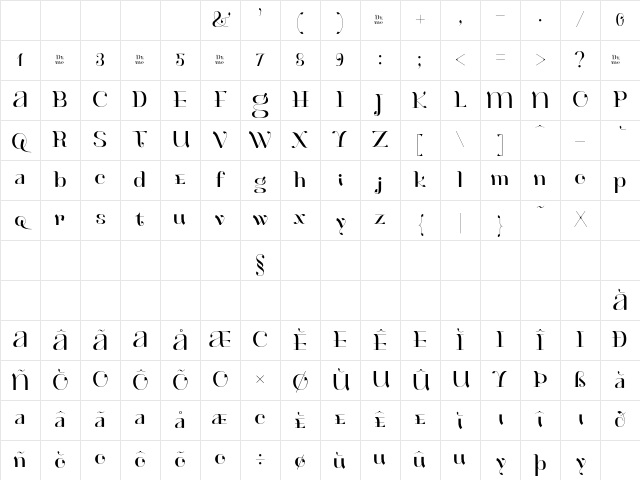
HenriModeste Demo Free Font
HenriModeste Demo
Design Context for HenriModeste
HenriModeste is a composed and adaptable typeface that performs quietly and consistently across a wide range of design contexts.